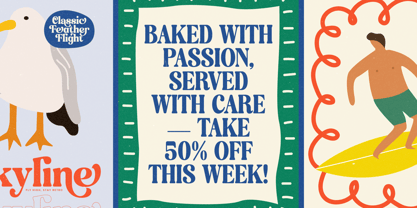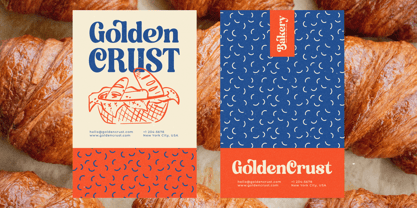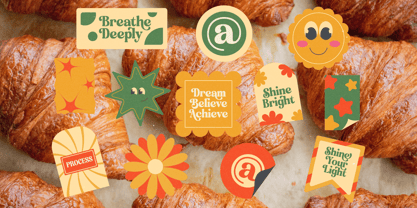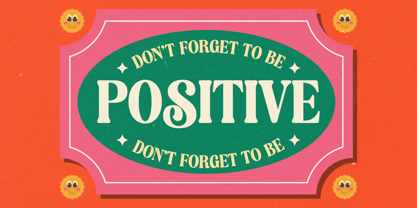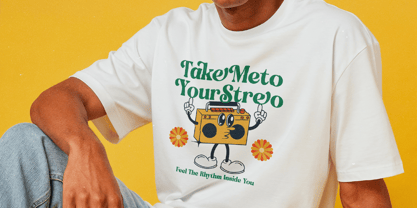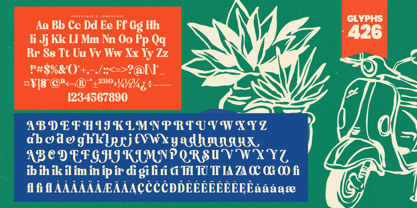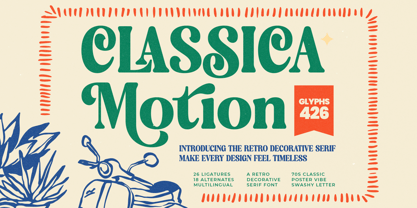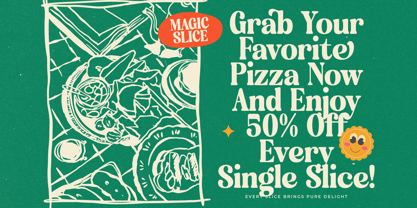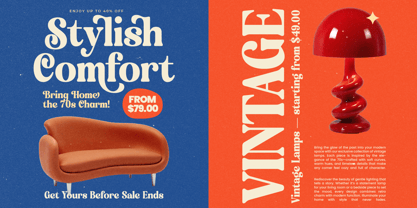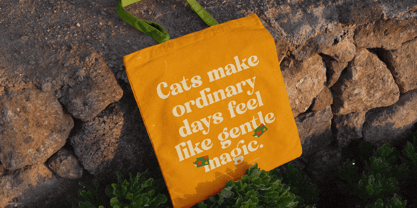
Classica Motion
by Timelesstype Studio
The Classica Motion Font Family was designed by Heru Utama Putra and published by Timelesstype Studio. Classica Motion contains 2 styles and family package options. More about this family
Classica Motion - Decorative Serif Font, Classica Motion is a retro decorative serif font inspired by vintage posters and timeless 70s aesthetics. Featuring 26 ligatures, 18 alternates, and 426 total glyphs, it blends bold shapes with elegant swashes for a classic yet artistic look. Perfect for logos, packaging, headlines, and editorial layouts, Classica Motion adds a nostalgic charm and handcrafted feel to any design project that seeks both character and creativity.